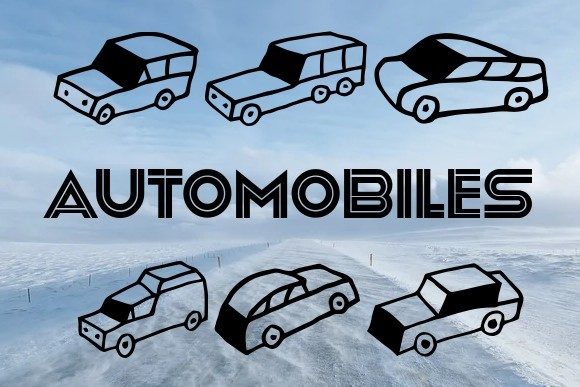
**Introducing Automobiles Font: The Ultimate Typeface for Auto Enthusiasts**
Prepare to rev your engines and ignite your creativity with Automobiles Font, the unparalleled dingbats font designed to propel your automotive-themed projects to new heights. This exceptional typeface is the brainchild of the renowned designer vladimirnikolic, renowned for crafting fonts that exude both style and substance.
Automobiles Font is not just a collection of characters; it's a gateway to a world of endless possibilities. Whether you're a seasoned graphic designer, a passionate car enthusiast, or simply someone seeking to add a touch of automotive flair to your creations, this font has got you covered.
**Why Automobiles Font is the Perfect Choice for Your Automotive Projects:**
* **Unleash Your Inner Mechanic:** With its meticulously crafted symbols and icons, Automobiles Font empowers you to bring your automotive concepts to life. From sleek car silhouettes to intricate engine parts, this font has everything you need to create designs that resonate with car lovers everywhere.
* **Ignite Your Imagination:** Let your creativity run wild as you explore the boundless possibilities offered by Automobiles Font. Perfect for logos, posters, flyers, and more, this font will spark your imagination and help you create truly captivating designs.
* **Rev Up Your Branding:** Automobiles Font is the perfect tool for making your automotive brand stand out from the crowd. Its unique and eye-catching characters will ensure that your designs leave a lasting impression on potential customers.